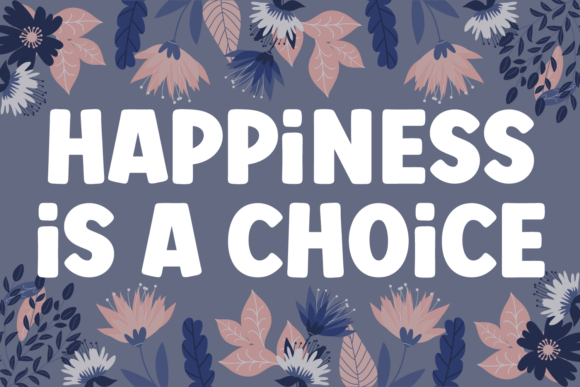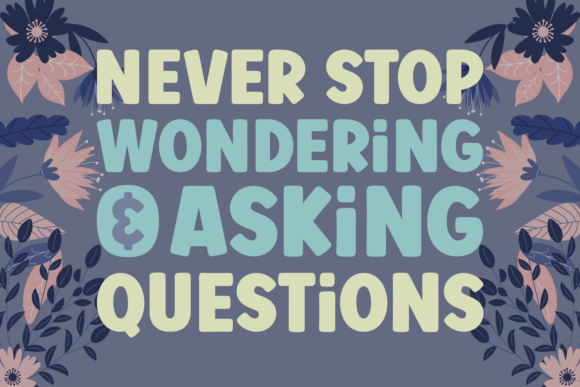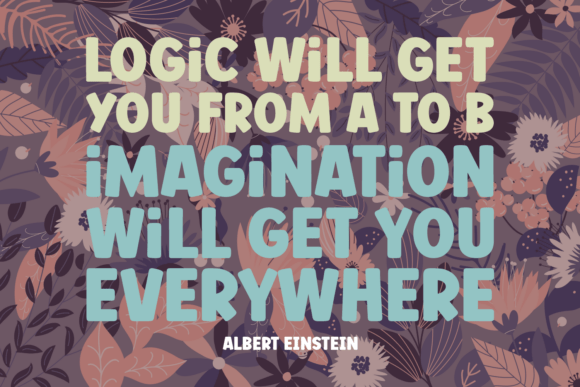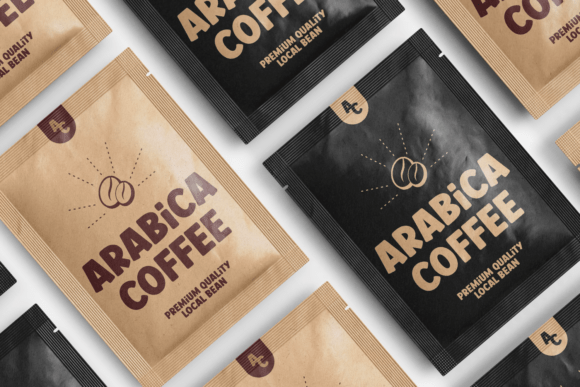
Introducing Ask Him Font: A Bold and Whimsical Typeface to Elevate Your Designs
Are you tired of using the same old fonts in your designs? Do you want to add a touch of whimsy and fun to your creative work? Look no further than Ask Him Font, a bold and bouncy display font that’s sure to bring instant joy to your projects. In this article, we’ll take a closer look at the features and benefits of Ask Him Font, and explore how it can be used to elevate your designs.
The Inspiration Behind Ask Him Font
Ask Him Font is a unique and playful typeface that’s inspired by the charm of paper cutouts and bubble lettering. Its soft, rounded terminals and cheerful, irregular rhythm give it a distinctive look that’s sure to grab attention. The font’s designer aimed to create a typeface that’s fun, energetic, and perfect for designs that need a youthful touch.
Key Features of Ask Him Font
So, what makes Ask Him Font so special? Here are some of its key features:
- Bold and bouncy design: Ask Him Font is a display font that’s designed to make a statement. Its bold and bouncy design makes it perfect for titles, headings, and other attention-grabbing elements.
- Soft, rounded terminals: The font’s soft, rounded terminals give it a friendly and approachable feel that’s perfect for designs that need a touch of whimsy.
- Cheerful, irregular rhythm: Ask Him Font’s irregular rhythm mimics the charm of paper cutouts and bubble lettering, adding a playful touch to your designs.
- Versatile and fun-first: Ask Him Font is a versatile typeface that’s perfect for a wide range of design projects, from titles and logos to packaging and posters.
Use Cases for Ask Him Font
So, what can you use Ask Him Font for? The possibilities are endless, but here are some ideas to get you started:
- Titles and headings: Ask Him Font is perfect for titles and headings that need to make a statement. Its bold and bouncy design makes it ideal for grabbing attention and adding visual interest to your designs.
- Toy packaging: The font’s playful and whimsical design makes it perfect for toy packaging that’s designed to appeal to kids.
- School posters: Ask Him Font is a great choice for school posters and flyers that need to grab attention and convey a sense of fun and energy.
- Youth-oriented logos: The font’s bold and playful design makes it perfect for logos that need to appeal to a young audience.
- T-shirts, stickers, and greeting cards: Ask Him Font looks fantastic on t-shirts, stickers, and greeting cards, adding a touch of whimsy and fun to your designs.
Why Choose Ask Him Font?
So, why should you choose Ask Him Font for your design projects? Here are just a few reasons:
- Instant joy: Ask Him Font is designed to bring instant joy to your designs, making it perfect for projects that need to convey a sense of fun and energy.
- Unique and playful design: The font’s unique and playful design sets it apart from more traditional typefaces, making it perfect for designers who want to add a touch of whimsy to their work.
- Versatile and adaptable: Ask Him Font is a versatile typeface that can be used in a wide range of design projects, from titles and logos to packaging and posters.
| Font Name | Ask Him Font |
| Author | Jasa (7NTypes) |
In conclusion, Ask Him Font is a bold and whimsical typeface that’s perfect for designers who want to add a touch of fun and energy to their work. Its unique and playful design, combined with its versatility and adaptability, make it a great choice for a wide range of design projects. Whether you’re working on titles, logos, packaging, or posters, Ask Him Font is sure to bring instant joy and visual interest to your designs.